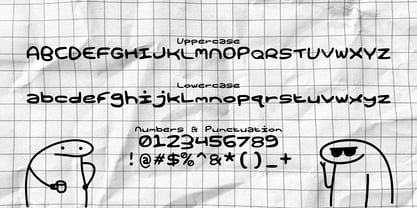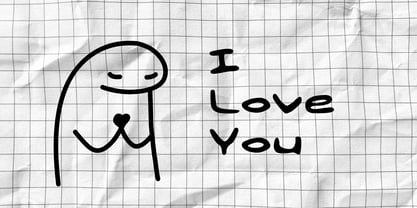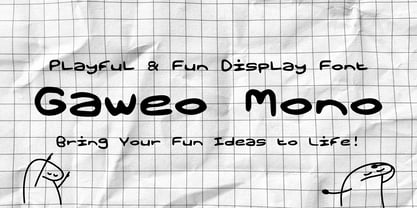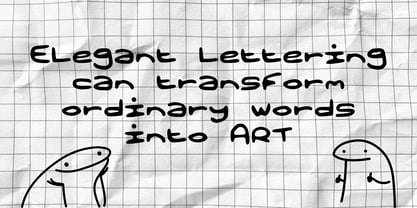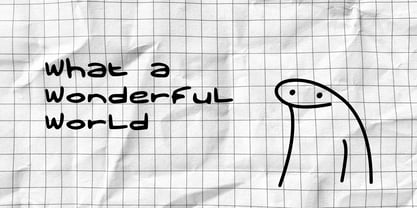
Gaweo Mono
Gaweo Mono is a charming handwritten font with a monoline style that delivers a natural, casual, and authentic handwritten feel. Designed with clean strokes and balanced proportions, this font is perfect for projects that need a friendly, personal, and modern touch while maintaining excellent readability.
Whether you're creating branding, social media graphics, packaging, invitations, quotes, posters, logos, or digital products, Gaweo Mono adds warmth and personality to every design.
Features
• Uppercase & Lowercase
• Numbers & Punctuation
• Smooth Monoline Handwritten Style
• Easy to Read
Bring a genuine handwritten character to your next creative project with Gaweo Mono—a versatile monoline font designed to make your typography feel natural, expressive, and effortlessly stylish.